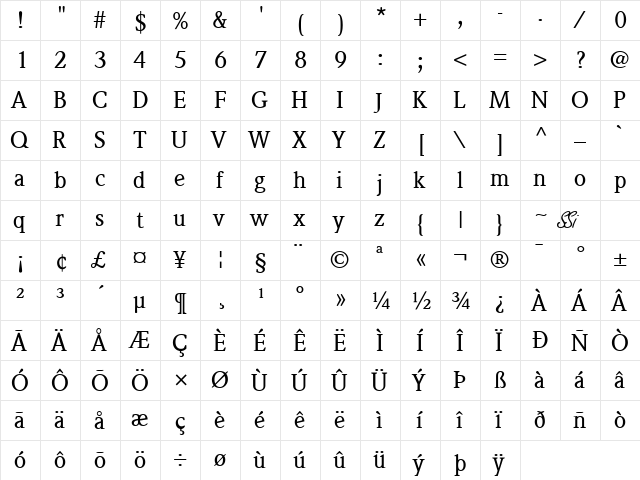
Quintessence Medium SSi Medium
Design Context for Quintessence Medium SSi Typeface
Quintessence Medium SSi is a composed and adaptable typeface that performs quietly and consistently across a wide range of design contexts.